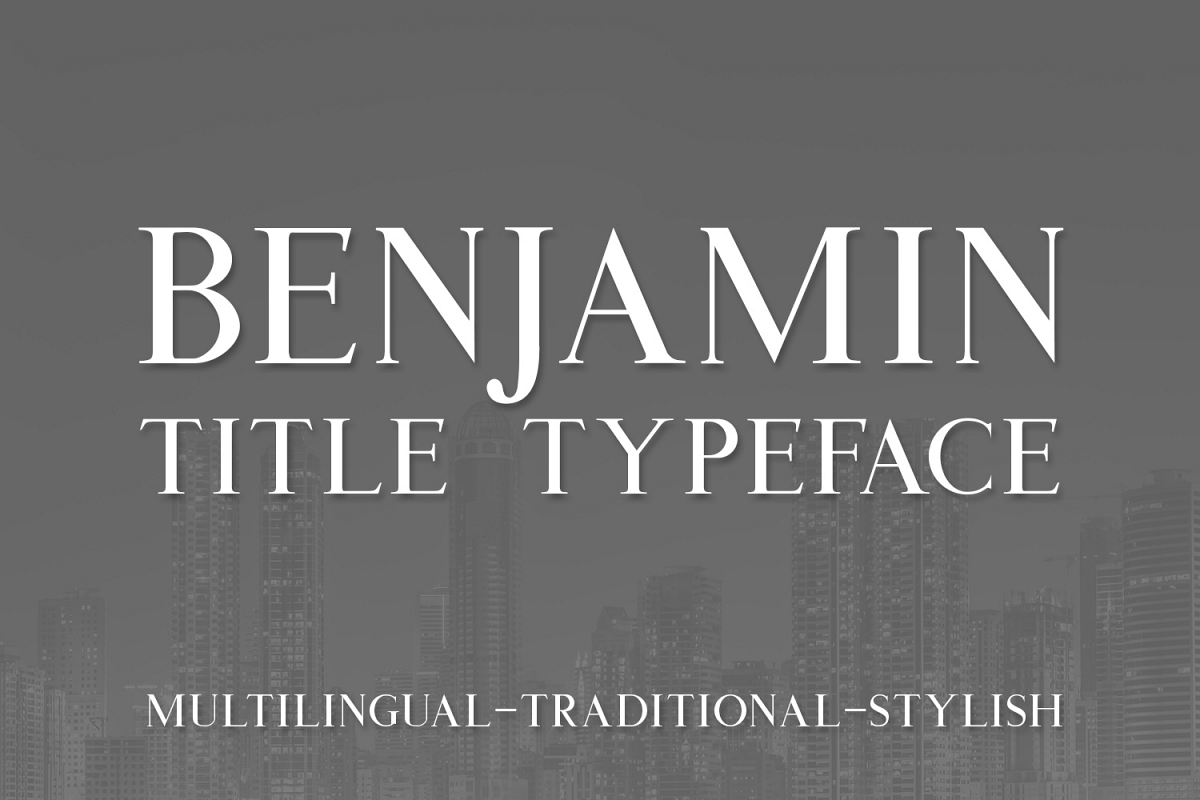
Benjamin Title Typeface is a stylish all-caps serif font, providing a traditional masculine portrayal of authority and confidence.
Benjamin Title looks great in branding and as a heading font when paired with something like Open Sans.